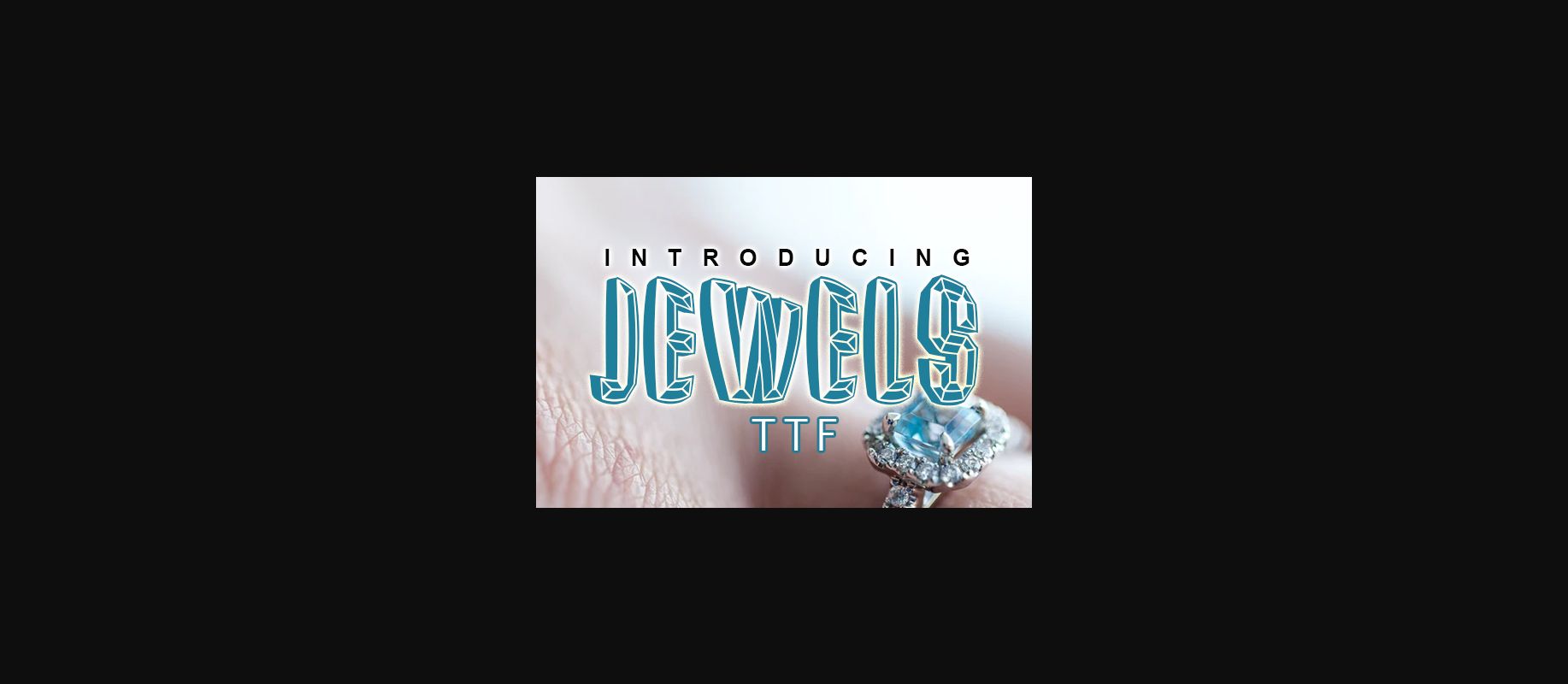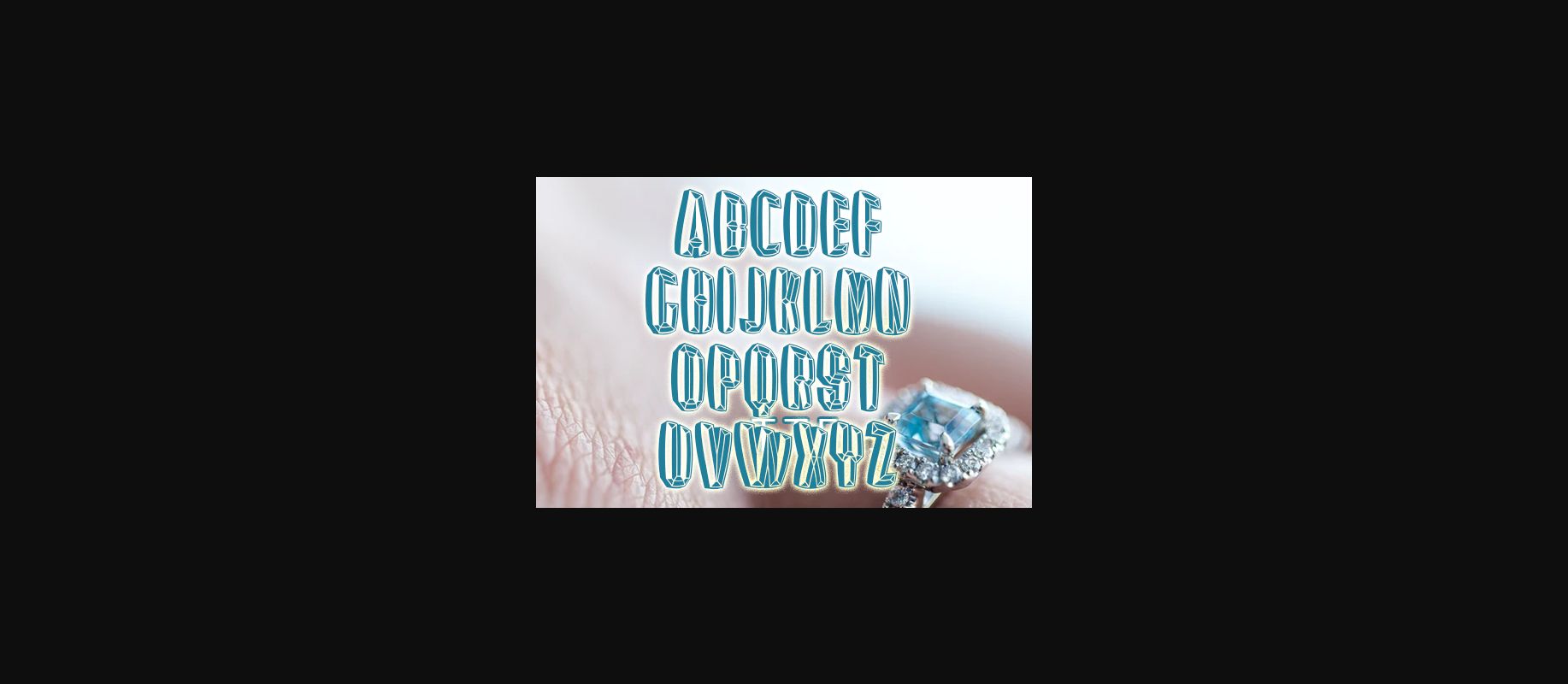
About Jewels Font
Jewels is an awesome decorative font that will look stunning on any poster, flyer, or print. Use this font for your designs and explore its endless possibilities.